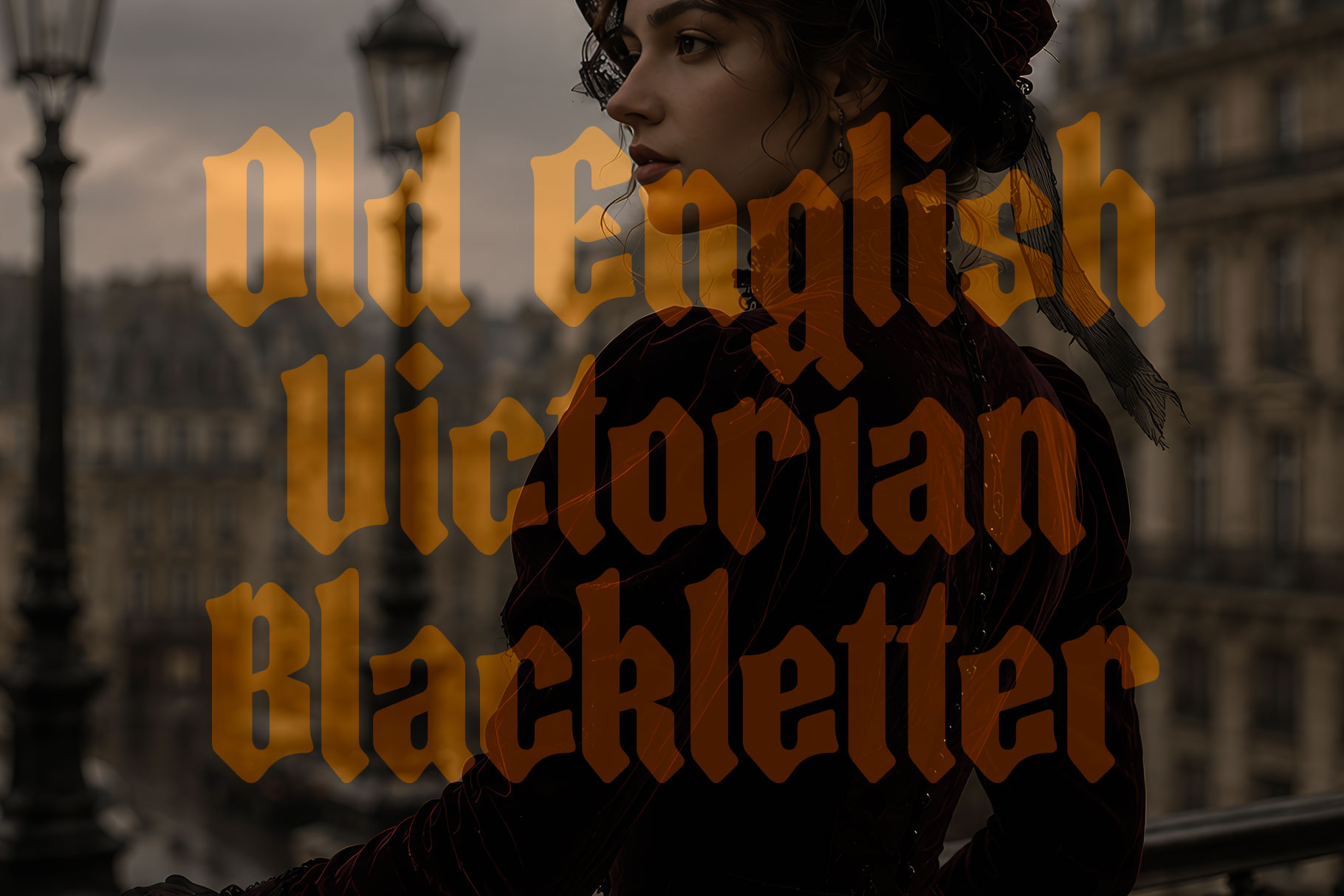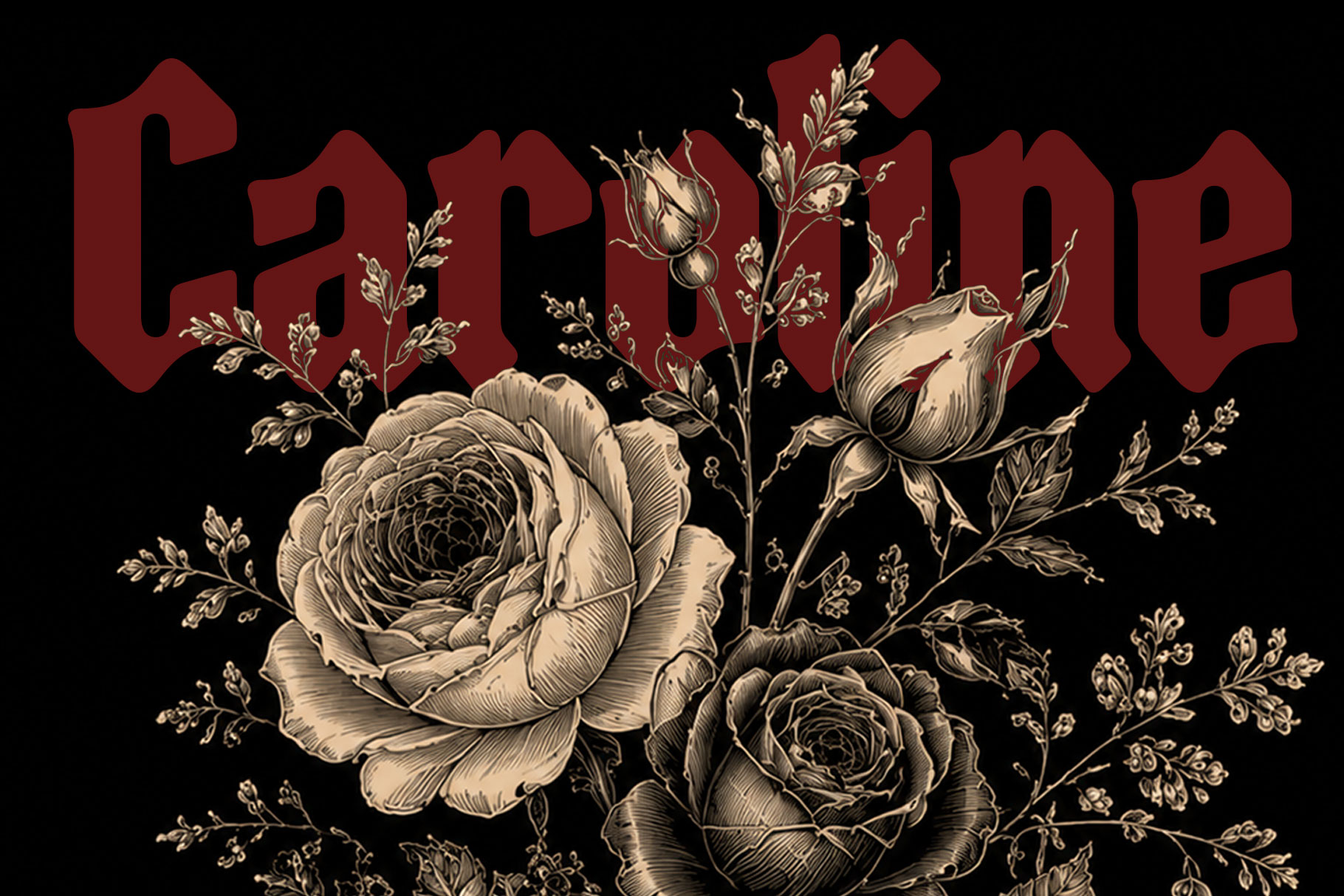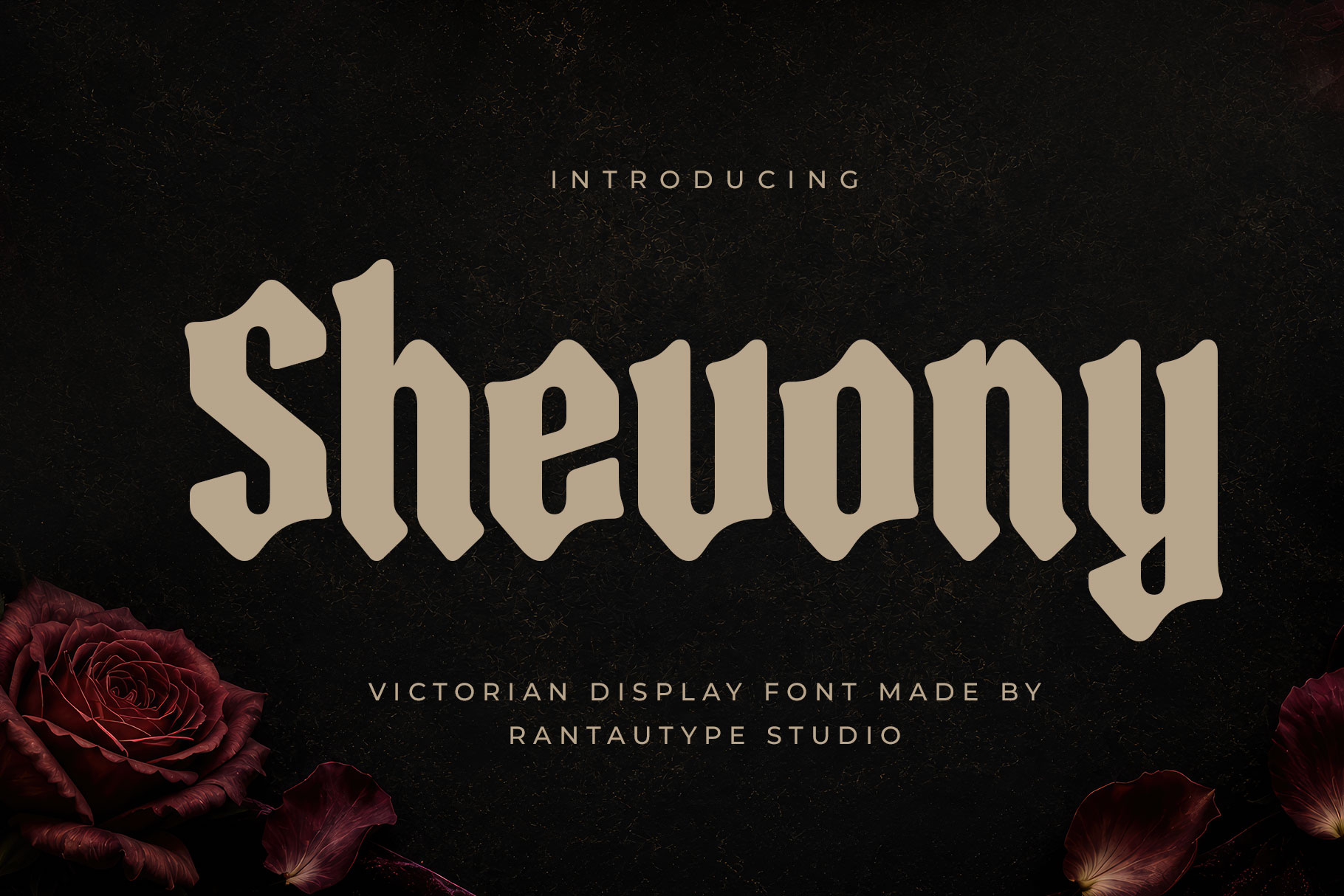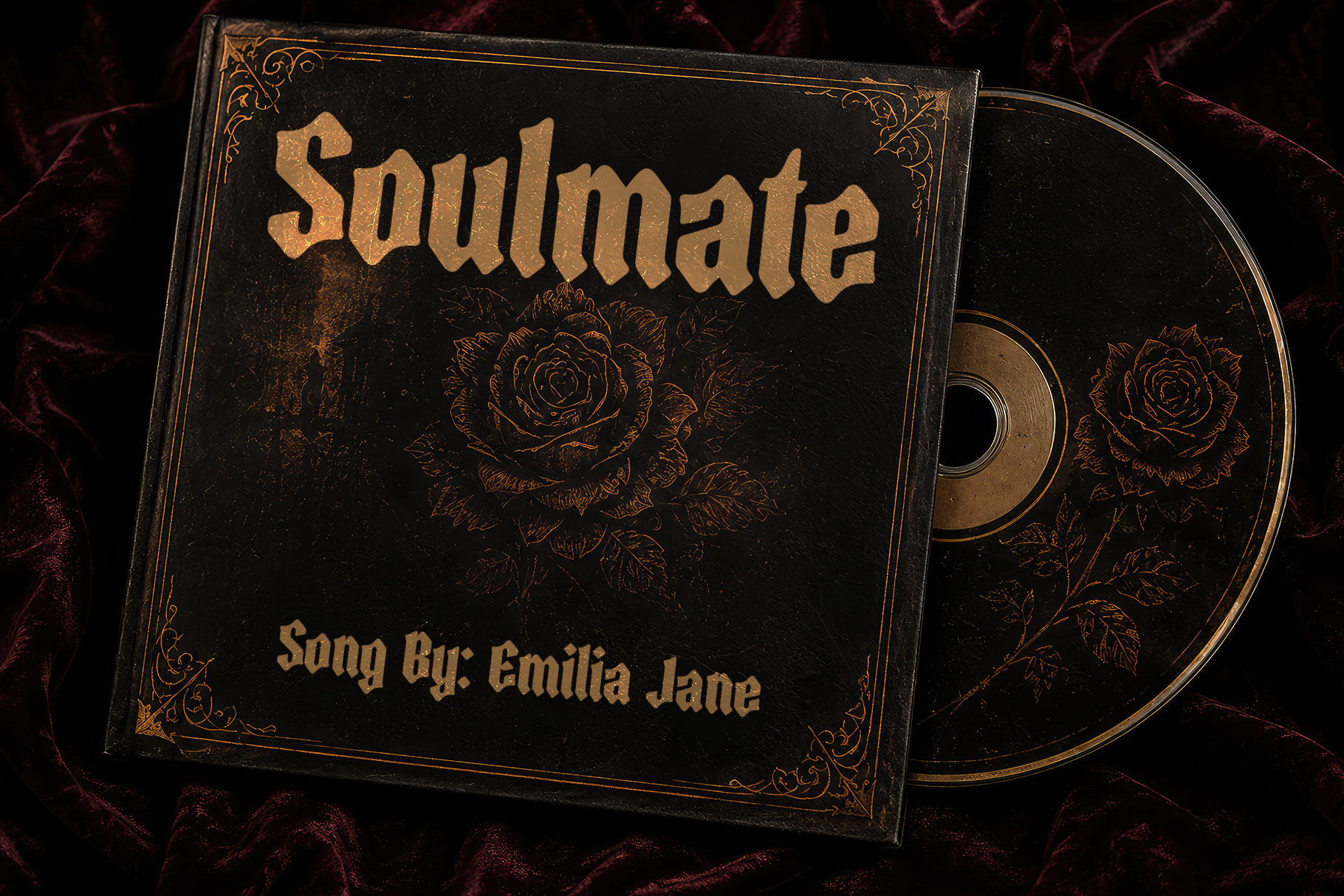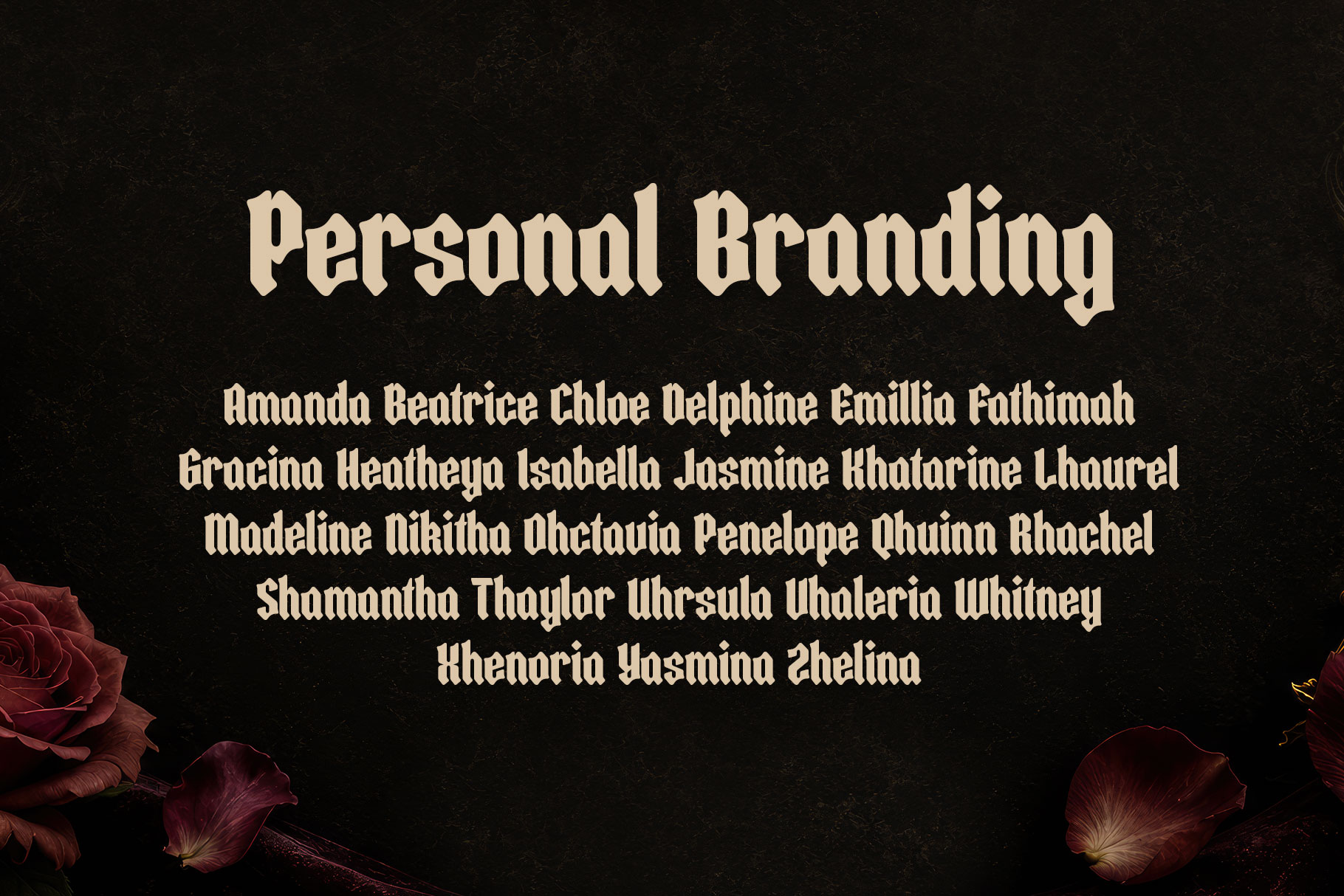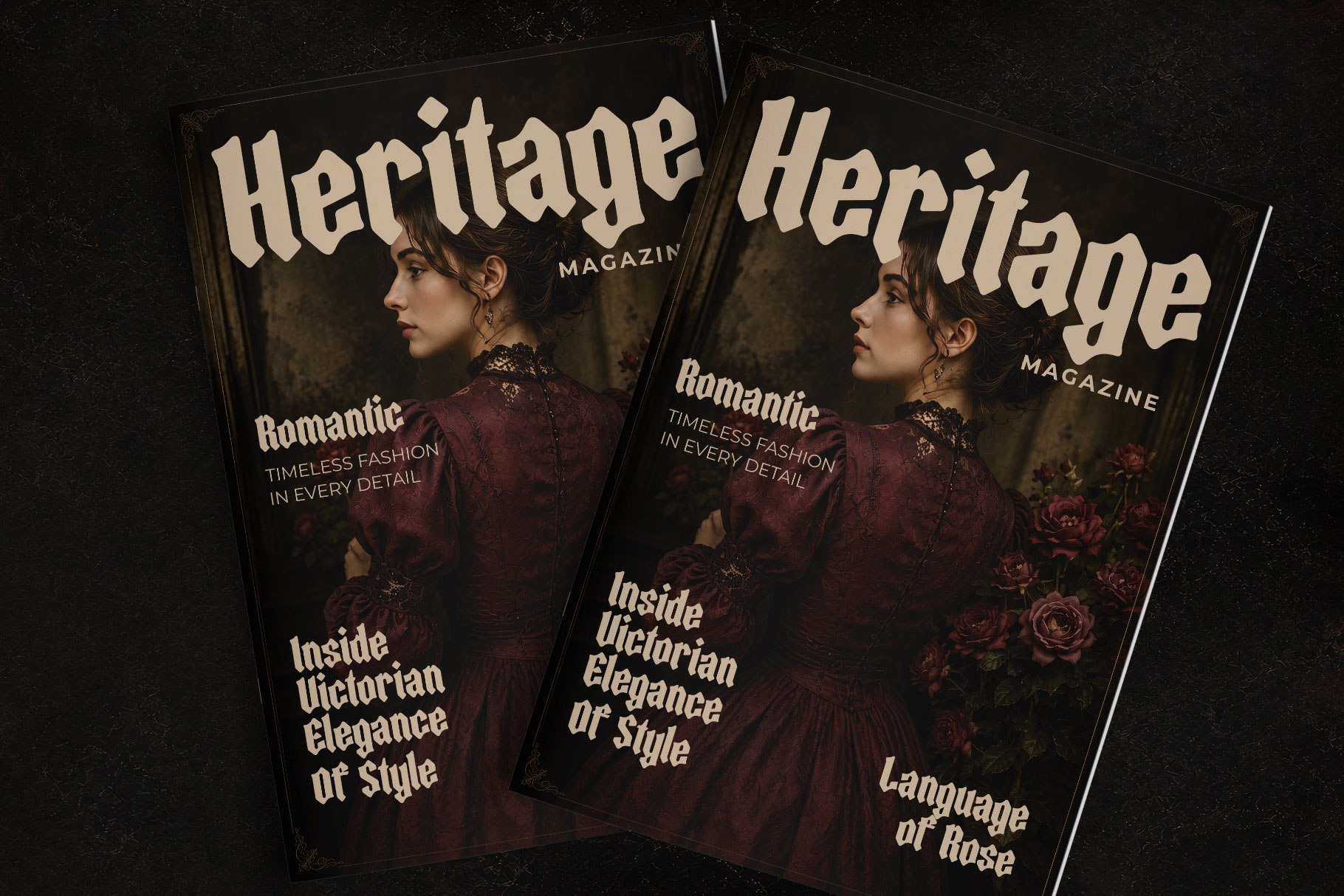
Shevony is victorian display font captures the timeless elegance of nineteenth-century lettering while introducing a bold, contemporary personality. Inspired by classic Gothic and Old English typography, each character features thick, confident strokes, softened corners, and distinctive angular terminals that create a refined yet approachable appearance
Shevony a perfectly choice for any creative endeavor, creating, modern, lifestyle design such as logotype, title, cover, branding, invitations, wedding designs, display and magazine, social media posts, advertisements, printed quotes, product packaging, corporate brand, product designs, labels, photography, watermarks, special events and any other project with victorian touch.
Shevony Victorian Display Font